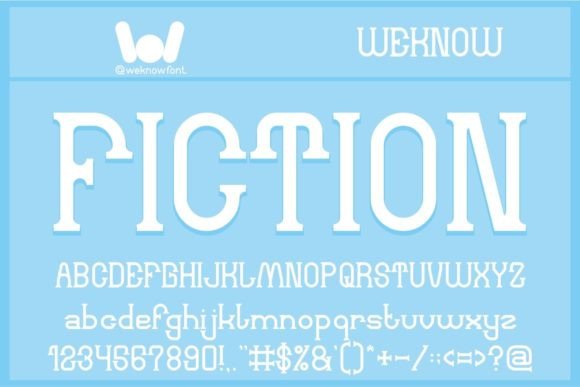
Fiction Font: Elevate Your Creative Projects with a Cool and Unique Serif Font
Are you a designer, crafty enthusiast, or creative professional looking for a font that can take your projects to the next level? Look no further than Fiction Font, a masterfully designed serif font that is both cool and unique. With its exceptional style and versatility, Fiction Font has the potential to become a true favorite in your creative arsenal.
The Story Behind Fiction Font
Fiction Font is more than just a font – it’s a creative tool designed to help you bring your ideas to life. Its design is rooted in the concept of storytelling, making it perfect for projects that require a touch of narrative flair. Whether you’re working on a book cover, magazine layout, or branding project, Fiction Font is sure to add a professional and sophisticated touch.
Key Features of Fiction Font
- Unique Serif Style: Fiction Font boasts a distinctive serif style that sets it apart from more traditional fonts. Its serifs are carefully crafted to add a touch of elegance and sophistication to your projects.
- Highly Versatile: Whether you’re working on a digital project or a print project, Fiction Font is highly versatile and can be used in a variety of contexts.
- Exceptional Legibility: Despite its unique style, Fiction Font remains highly legible, making it perfect for body text and headlines.
- Wide Range of Applications: Fiction Font is suitable for a wide range of applications, including book covers, magazine layouts, branding projects, and more.
Why Choose Fiction Font?
So why choose Fiction Font over other fonts on the market? Here are just a few reasons:
- Stand Out from the Crowd: With its unique serif style, Fiction Font is sure to help your projects stand out from the crowd.
- Elevate Your Brand: If you’re looking to elevate your brand and add a touch of sophistication, Fiction Font is an excellent choice.
- Easy to Use: Fiction Font is easy to use and can be easily integrated into your design workflow.
Tips for Using Fiction Font
Here are a few tips for getting the most out of Fiction Font:
- Experiment with Different Sizes: Fiction Font looks great in a variety of sizes, so don’t be afraid to experiment and find the perfect size for your project.
- Pair it with Other Fonts: Fiction Font pairs well with a variety of other fonts, so try pairing it with a sans-serif font for added contrast.
- Use it for Headlines and Body Text: Fiction Font is suitable for both headlines and body text, making it a versatile addition to your font library.
In conclusion, Fiction Font is a cool and unique serif font that is sure to elevate your creative projects to the highest level. With its exceptional style, versatility, and legibility, Fiction Font is an excellent choice for designers, crafty enthusiasts, and creative professionals. Whether you’re working on a book cover, magazine layout, or branding project, Fiction Font is sure to add a professional and sophisticated touch.